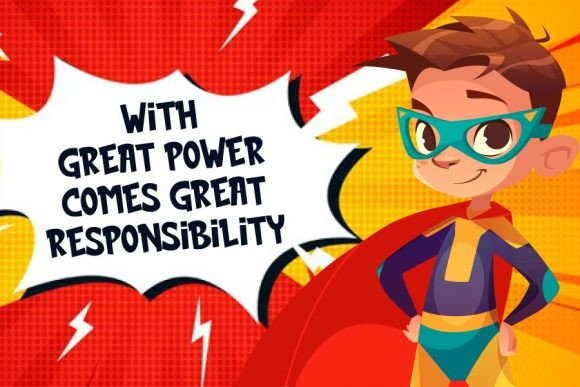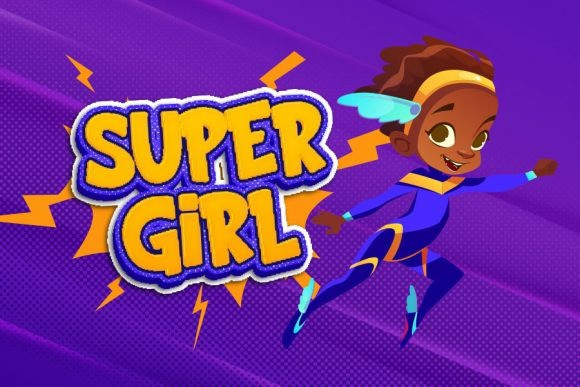
Brick Comic Display Font
Brick Comic is a cute and cartoon like display font. It embodies playfulness and authenticity, and is perfect for children themed designs, especially when combined with bright colors.